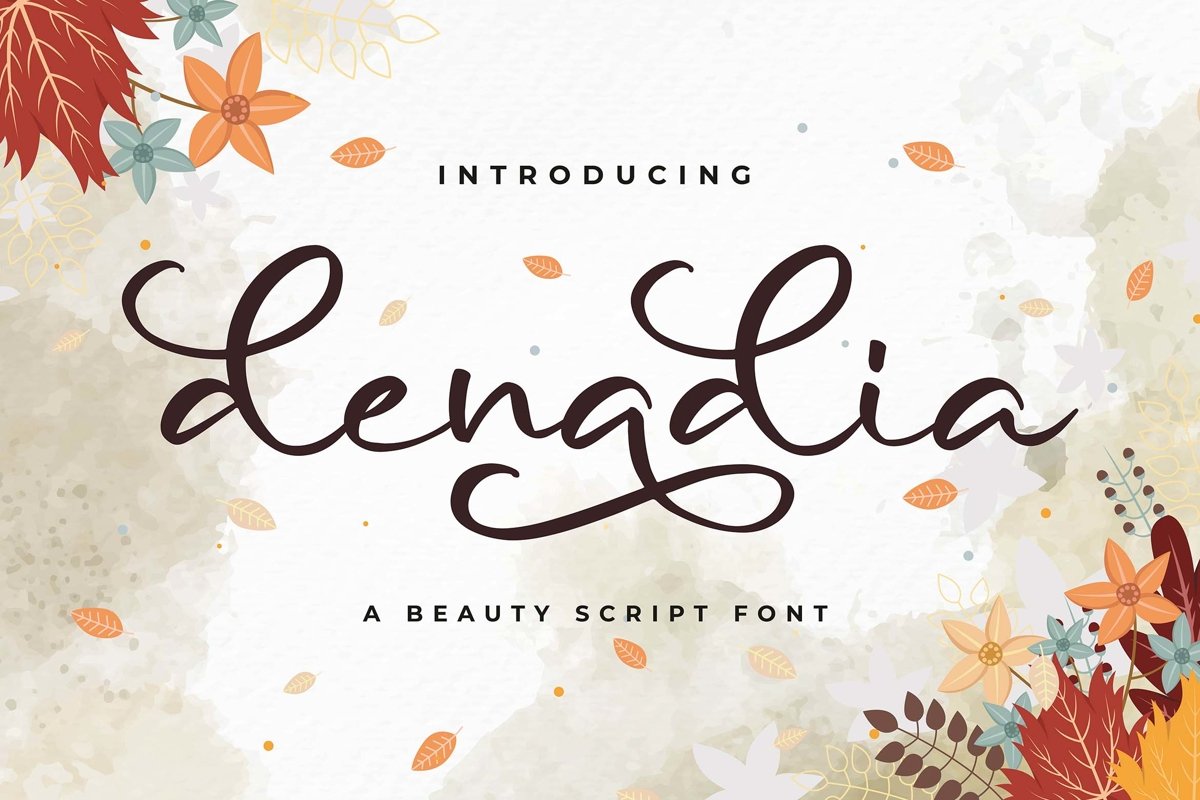
Introducing of our new product the name is Denadia a Beauty Script Font. Denadia inspired by modern calligraphy style this font is a fun theme very good for display, craft, wedding, valentine theme, logotype and etc
MULTILINGUAL ACCENT :
ØÆøæ¢ÐŒœÁĂÂÀÄĄÅÃǼĆČÇĈĊĎÉĔĚÊËĖÈĘĞĜĢĠĤÍĬÎÏİÌĮĨĴĶĹĽĻĿŃŇŅÑÓŎÔÖÒŐǾÕŔŘŖŚŠŞŜȘŤŢÚŬÛÜÙŰŲŮŨẂŴẄẀÝŶŸỲŹŽŻáăâäàąåãǽćčçĉċďéĕěêëėèęğĝģġĥíîïìįĩĵķĺľļŀńʼnňņñóŏôöòőǿõŕřŗśšşŝșťţŭûüűùųůũẃŵẅẁýŷÿỳźžż